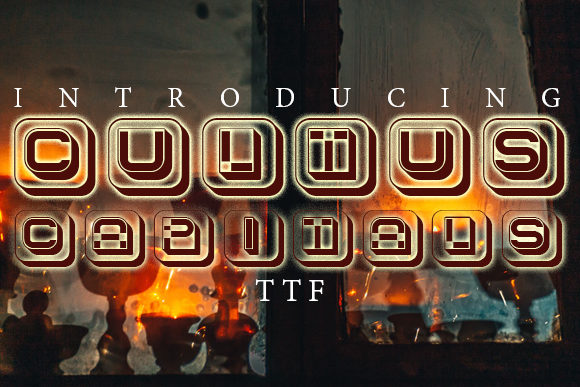
**Cultus Capitals: A Font That'll Make Your Designs Pop**
Are you tired of your designs looking flat and uninspired? Do you want to add some serious depth and dimension to your work? Then you need Cultus Capitals!
Cultus Capitals is a stunning 3D display font that will instantly elevate your designs to the next level. Its bold, blocky letters are perfect for creating eye-catching headlines, logos, and social media graphics. But don't just take our word for it – here's what some of our happy customers have to say:
"Cultus Capitals is the perfect font for making a statement. I've used it to create everything from logos to website banners, and it always gets rave reviews."
"I love the 3D effect of Cultus Capitals. It makes my designs look so much more dynamic and interesting."
"Cultus Capitals is a versatile font that can be used for a wide variety of projects. I highly recommend it to anyone looking to add some extra flair to their designs."
**Benefits of using Cultus Capitals:**
* Adds depth and dimension to your designs
* Perfect for creating eye-catching headlines, logos, and social media graphics
* Versatile font that can be used for a wide variety of projects
**Cultus Capitals: The Perfect Font For:**
* Logos
* Branding
* Headlines
* Social media graphics
* Posters
* Flyers
* Invitations
* And much more!